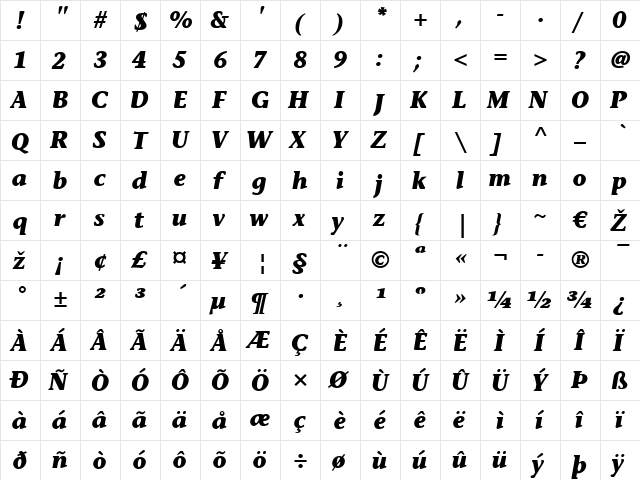
StoneInformal LT Bold Italic
Design Context for StoneInformal LT Bold Typeface
StoneInformal LT Bold is a composed and adaptable typeface that performs quietly and consistently across a wide range of design contexts. Its italic angle brings a sense of urgency and motion to the letterforms. Its bold stroke weight gives it real presence on the page.
Pro Tip: Use StoneInformal LT Bold for emphasis, pull quotes, and subheadings where its slanted energy can add rhythm to the layout.